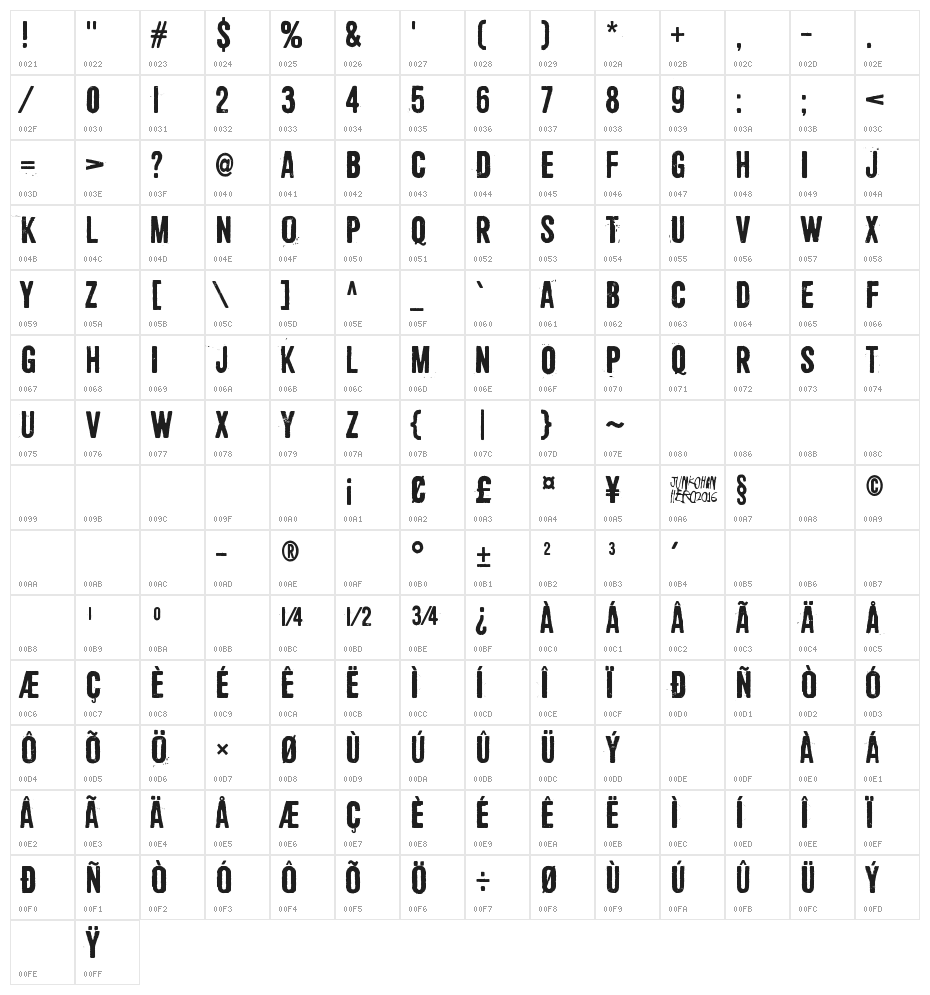
Shoemaker Font
Shoemaker Description
This font features a bold, distressed style with a rugged, vintage appearance. The characters are uppercase and have a slightly uneven texture, giving them a worn, industrial look. The strokes are thick and consistent, with a rough edge that adds to the font's character. It evokes a sense of strength and durability, making it ideal for projects that require a bold statement. The numbers and special characters maintain the same distressed aesthetic, ensuring a cohesive look across all text elements.
| Proposed Projects | Ideal for posters, branding, packaging, and any design that requires a strong, vintage aesthetic. |